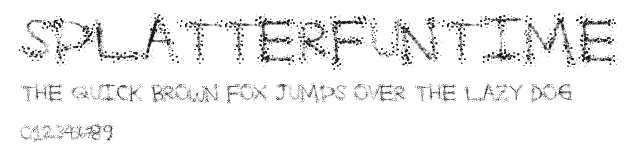
• Font Name: SplatterFuntime
• Designer: Max Infeld
• Manufacturer: Xerographer Fonts
• Description: This font at in Chico,CA splatter horror gross dots